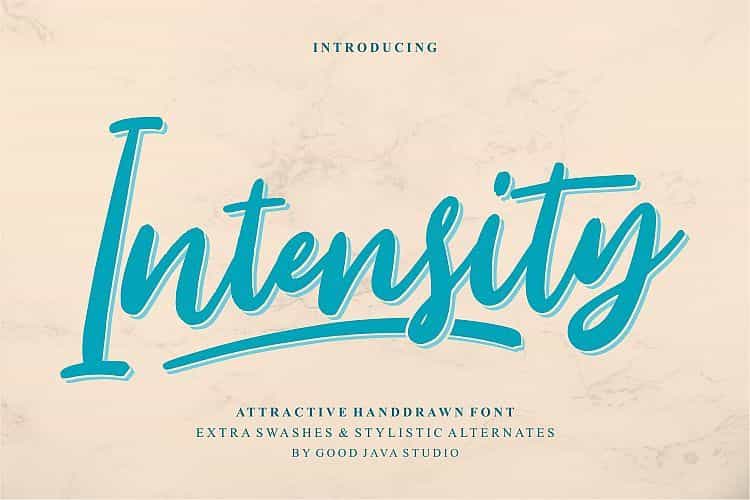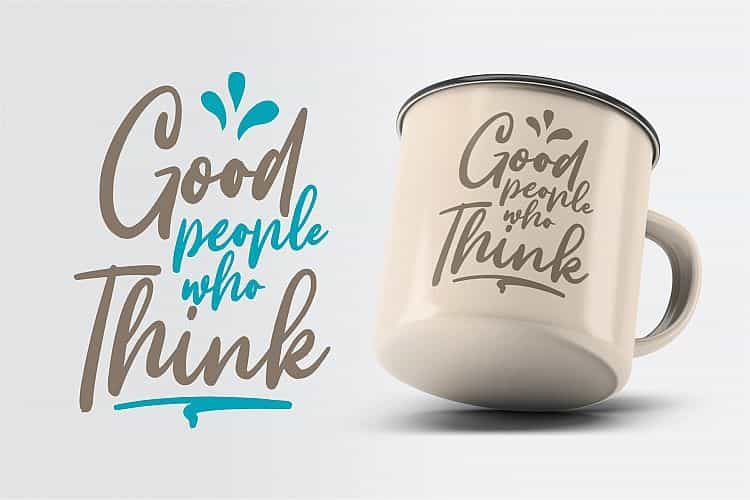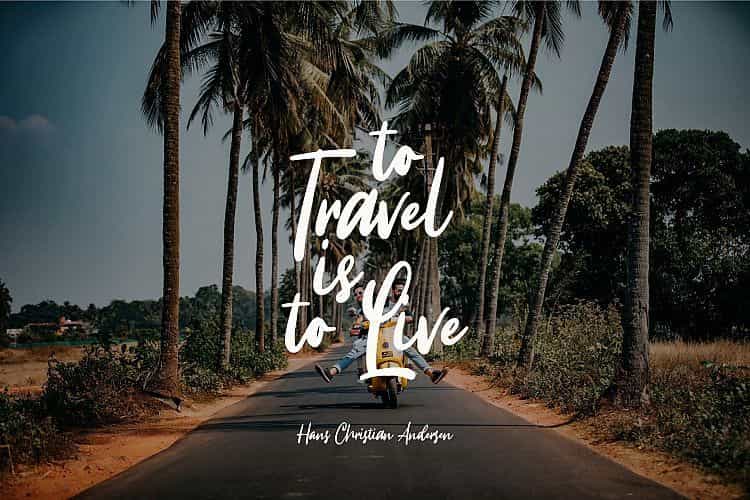
Discover Intensity Script Font, part of the Brush collection—a versatile and unique font perfect for adding a personal touch to your projects. Download it for free and enjoy crafting designs with style, from invitations to social media posts. This font is available exclusively for personal use, giving you the freedom to create without limits. Unlock your creativity with Intensity Script Font today!
Introducing Intensity Font!It is created and distributed by Good Java Studio. It is a natural & contemporary cursive font. It is an ideal for a logo, invitation, stationery, wedding designs, social media posts, advertisements, product packaging, product designs, label, photography, watermark, special events or anything.